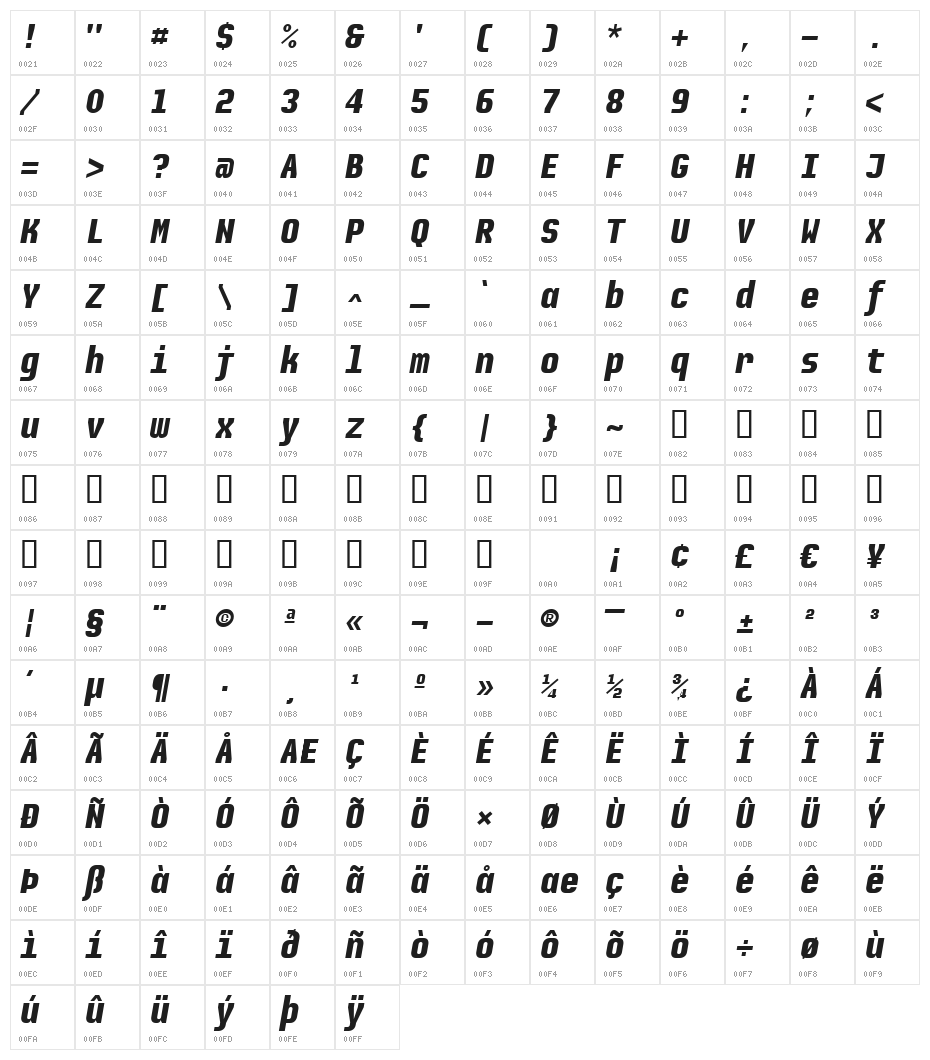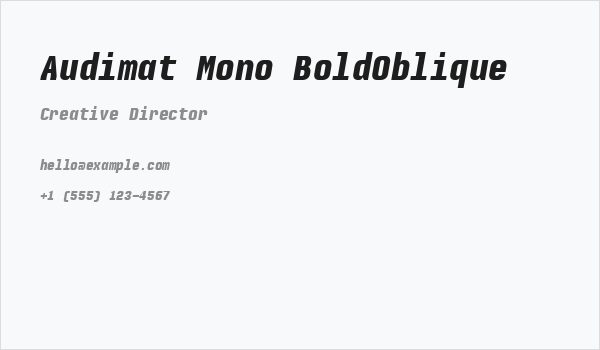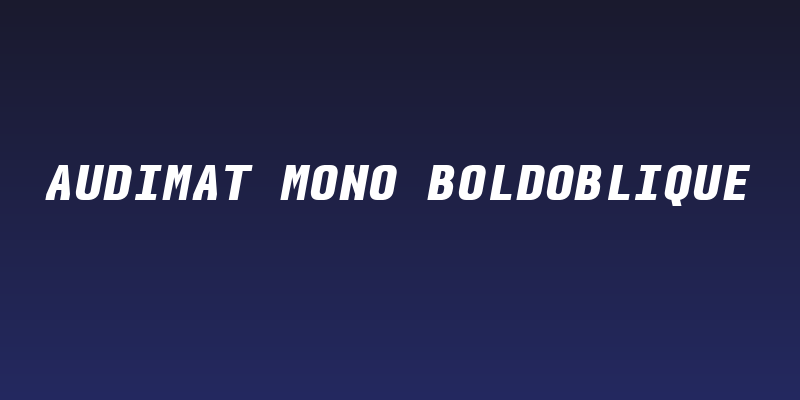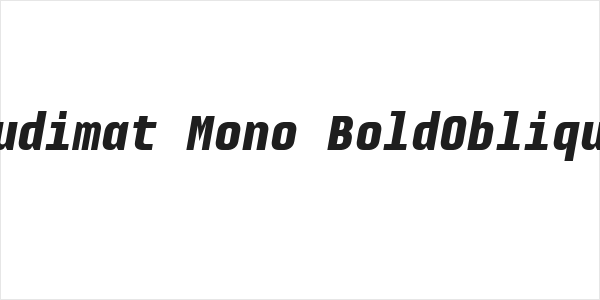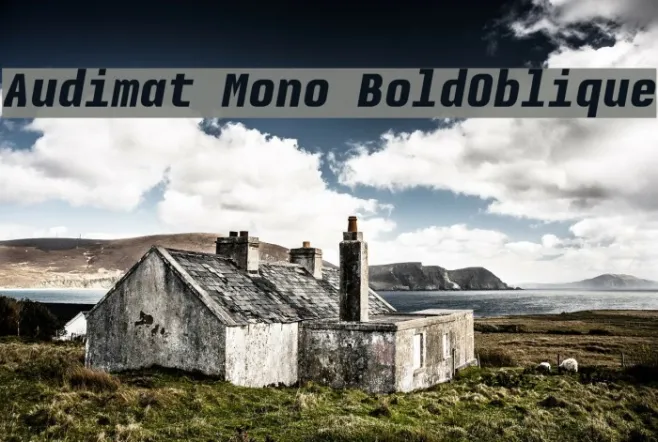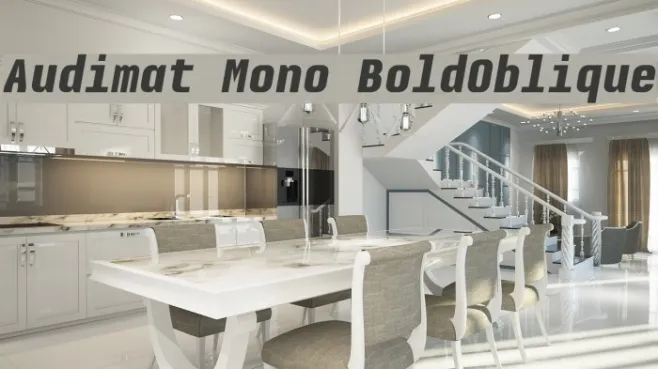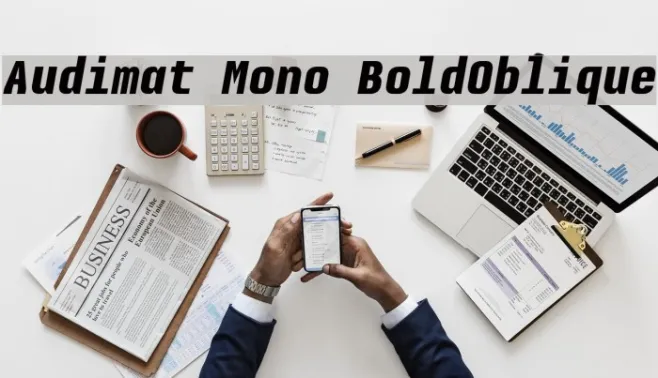
Audimat Mono BoldOblique Font
Audimat Mono BoldOblique Description
This font features a bold and oblique style, characterized by its monospaced design. Each character maintains a consistent width, providing a uniform appearance. The slanted orientation adds a dynamic and modern touch, making it stand out in various applications. The bold weight ensures strong visibility and impact, while the monospaced nature lends itself well to technical and coding environments. The characters are well-defined with a moderate contrast in stroke thickness, offering clarity and readability. This font is versatile, suitable for both digital and print media, and can be effectively used in settings that require a contemporary and robust typeface.
| Use Case | Headlines, Coding, Technical documentation |
| Proposed Projects | Ideal for coding, technical documentation, modern branding, and digital interfaces. |